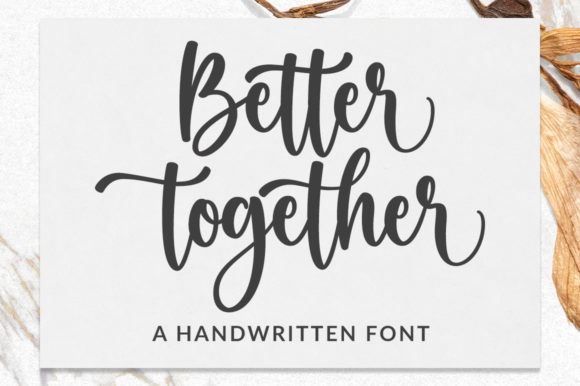
Introducing Better Together Font - the perfect way to bring your designs to life! Crafted by Graphix Line Studio, this timeless handwritten font is designed to elevate your branding, logos, and quotes with its stunning and unique touch.
Better Together Font is more than just a font - it's a tool that will allow you to express your creativity and bring your vision to life. Each letter has been meticulously crafted to ensure that it stands out, making your designs truly one-of-a-kind.
With its captivating beauty and timeless elegance, Better Together Font is perfect for a variety of projects. Whether you're creating a logo for your brand, designing an eye-catching quote, or crafting a stunning piece of branding, this font is the perfect choice.